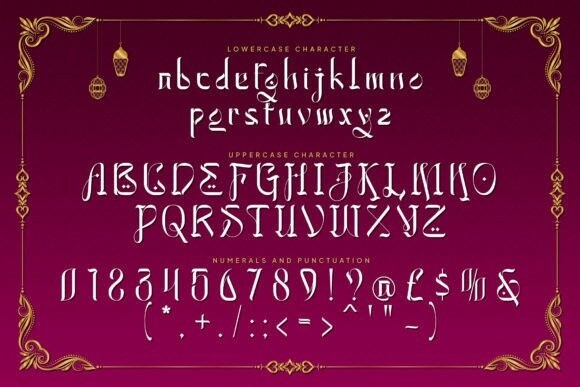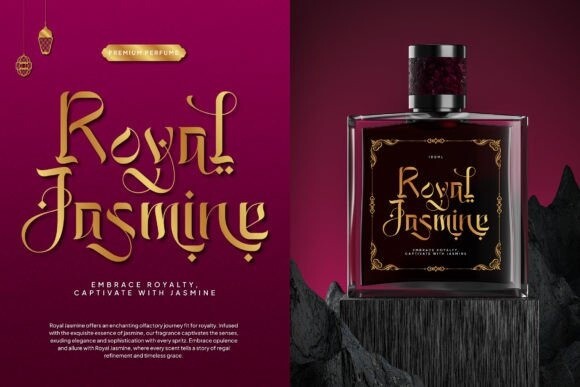
Almunajat Font
Almunajat Font is a beautiful Arabic-style typeface that adds elegance to your text. Its intricate design captures the essence of Arabic calligraphy, making it perfect for adding a touch of sophistication to your projects. Whether you’re designing invitations, posters, or any text that needs a touch of cultural richness, Almunajat brings an authentic Arabic aesthetic to your work.